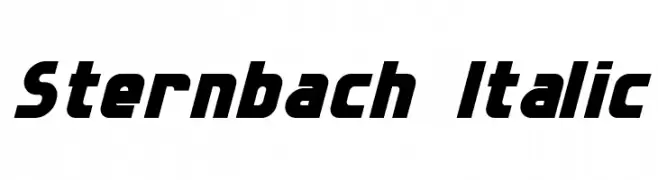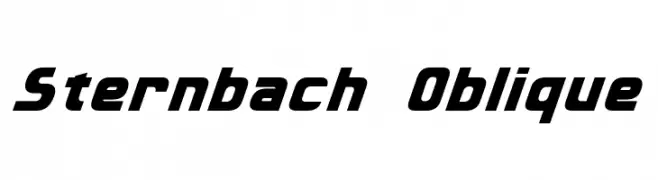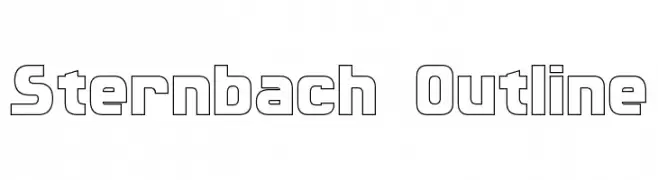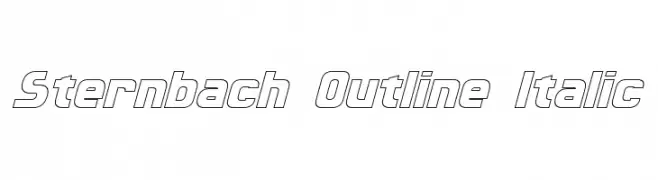
A bold, geometric font with a futuristic and angular design.
A bold, italic font with a modern, dynamic style and strong visual impact.
A bold, oblique font with a futuristic and dynamic style.